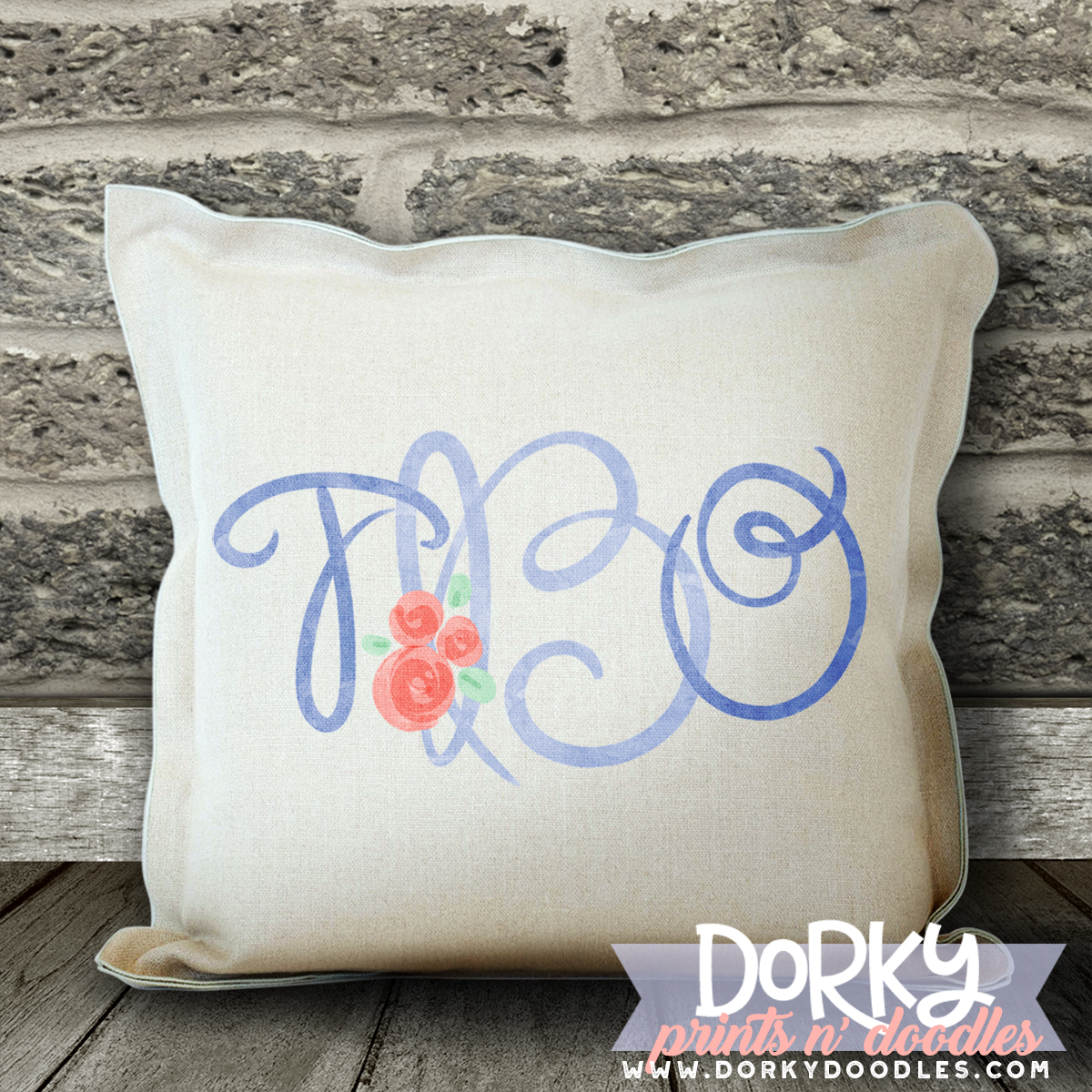
These hand drawn letter watercolor PNGs are ready to personalize all of your projects! It’s perfect for heat press projects, planners, card making, cookies, school projects, and more! This is the version without the floral accent and has a matching letter in the Paulette Floral font.